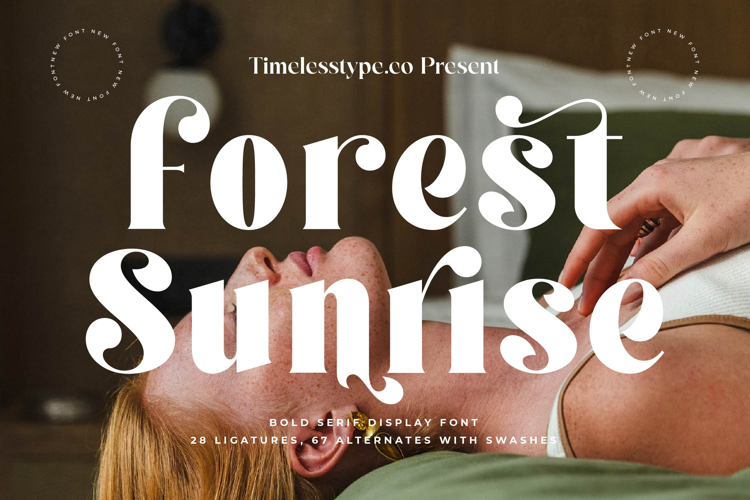
Forest Sunrise - Bold Serif Display Font
Elevate your design projects with the unparalleled elegance of Font Forest Sunrise - Bold Serif Display Font . This captivating display serif embodies a perfect blend of classic sophistication and contemporary flair, featuring bold, high-contrast strokes and graceful curves. Its refined aesthetic is meticulously crafted to leave a lasting impression, ensuring your message is conveyed with undeniable style and authority.
Unleash boundless creative potential with the rich typographic features embedded within Font Forest Sunrise - Bold Serif Display Font . Boasting an impressive collection of 28 ligatures and 67 alternates with swashes, this font offers exceptional customization. These intricate details allow for unique word shaping and personalized expressions, making every design truly one-of-a-kind.
Expand your brand's global footprint with uncompromising linguistic versatility. With its extensive multilingual support, Font Forest Sunrise - Bold Serif Display Font adapts seamlessly across global markets, making it incredibly versatile for international projects. This comprehensive language coverage ensures your sophisticated message resonates universally, maintaining its distinctive charm across diverse audiences.
Discover the ultimate typeface for making a distinctive statement in premium sectors. Font Forest Sunrise - Bold Serif Display Font is perfectly suited for luxury branding, high-end packaging, editorial design, fashion, and hospitality. Its inherent grace makes it ideal for captivating headlines, sophisticated advertising, distinctive logos, and elegant invitations, instantly adding prestige and exclusivity to any communication.